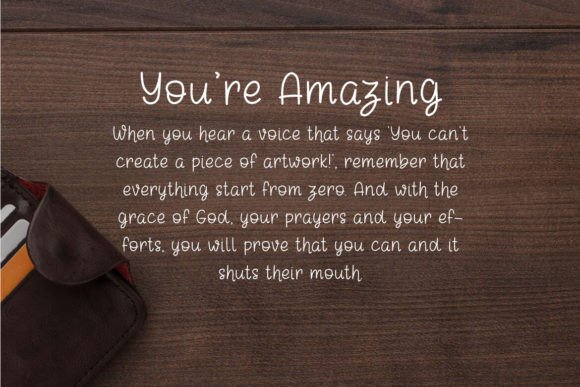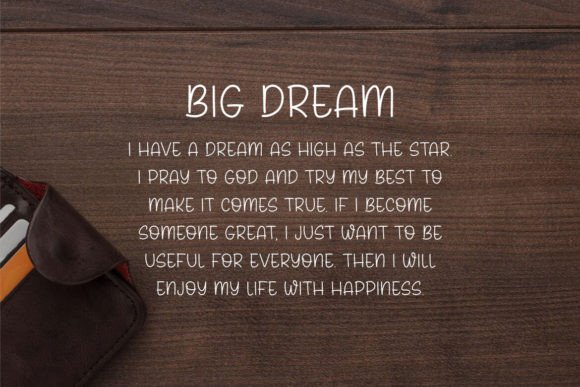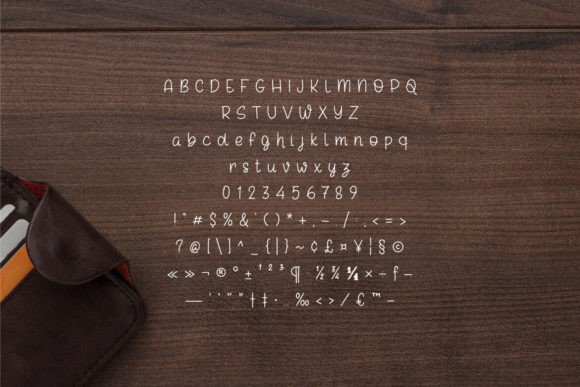
Introducing Have No Money Font: A Handwritten Monoline Marvel
Are you tired of using the same old fonts in your designs? Look no further! Have No Money is a fresh and exciting handwritten monoline font that’s perfect for adding a personal touch to your creative projects. In this article, we’ll dive into the world of Have No Money font, exploring its features, uses, and benefits for designers and crafters alike.
What is Have No Money Font?
Have No Money is a unique handwritten monoline font that’s designed to bring a touch of personality to your designs. Its monoline style gives it a clean and modern look, making it perfect for a wide range of applications. Whether you’re working on a comic book, poster, school project, or social media content, Have No Money font is sure to make your design stand out.
Features of Have No Money Font
So, what makes Have No Money font so special? Here are just a few of its key features:
- Handwritten style: Have No Money font has a beautiful, handwritten look that’s perfect for adding a personal touch to your designs.
- Monoline style: The monoline style gives the font a clean and modern look that’s perfect for a wide range of applications.
- Versatile: Have No Money font can be used in any works such as comic books, posters, school projects, flyers, book titles, advertisements, social media content, logos, and many more.
Uses of Have No Money Font
Have No Money font is incredibly versatile, making it perfect for a wide range of design projects. Here are just a few ideas to get you started:
- Comic books: Add a personal touch to your comic book designs with Have No Money font.
- Posters: Create eye-catching posters with Have No Money font that’s sure to grab attention.
- School projects: Use Have No Money font to add a creative touch to your school projects and presentations.
- Flyers: Create professional-looking flyers with Have No Money font that’s perfect for advertising events or services.
- Book titles: Use Have No Money font to create beautiful and eye-catching book titles.
- Advertisements: Add a personal touch to your advertisements with Have No Money font that’s sure to stand out.
- Social media content: Use Have No Money font to create engaging and eye-catching social media content.
- Logos: Create unique and memorable logos with Have No Money font that’s perfect for branding and identity design.
Benefits of Using Have No Money Font
So, why should you choose Have No Money font for your design projects? Here are just a few benefits:
- Unique and creative: Have No Money font adds a unique and creative touch to your designs, setting them apart from the rest.
- Easy to read: The monoline style of Have No Money font makes it easy to read, even at small sizes.
- Versatile: Have No Money font can be used in a wide range of design projects, making it a great addition to your font library.
- Time-saving: With Have No Money font, you can create professional-looking designs in no time, saving you time and effort.
In conclusion, Have No Money font is a unique and creative handwritten monoline font that’s perfect for designers and crafters alike. Its versatility, ease of use, and unique style make it a great addition to any font library. Whether you’re working on a comic book, poster, school project, or social media content, Have No Money font is sure to bring a touch of personality to your designs. So why wait? Download Have No Money font today and start creating amazing designs!